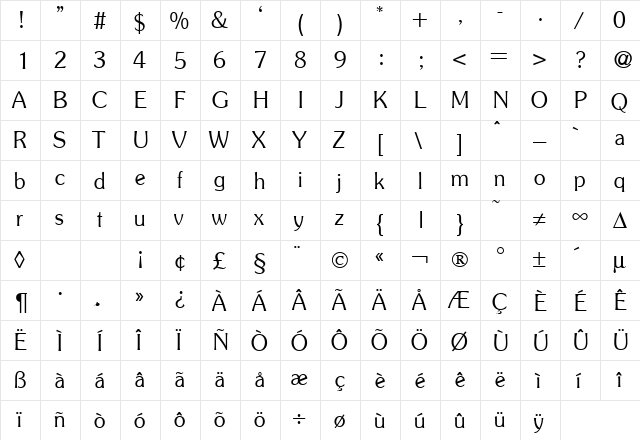
SunsetGothic Regular
Design Context for SunsetGothic Typeface
SunsetGothic has the quiet confidence of well-executed sans-serif typography: versatile, unobtrusive, and dependable at any size.
Font Pairing: Works well alongside a characterful serif or display font that can carry the expressive load while SunsetGothic handles the functional copy.
Pro Tip: Pair SunsetGothic with a display or serif font for headlines — its neutral character makes it an excellent supporting player in complex typographic systems.